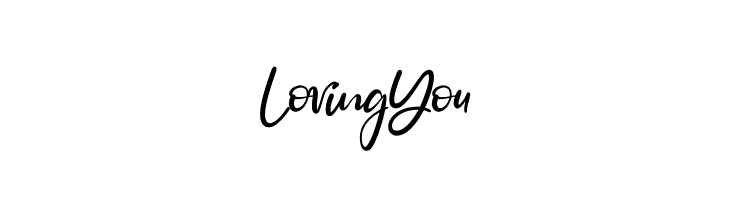
A bold, flowing script font with interconnected letters and dynamic style.
A sophisticated script font with fluid, cursive strokes and elegant details.